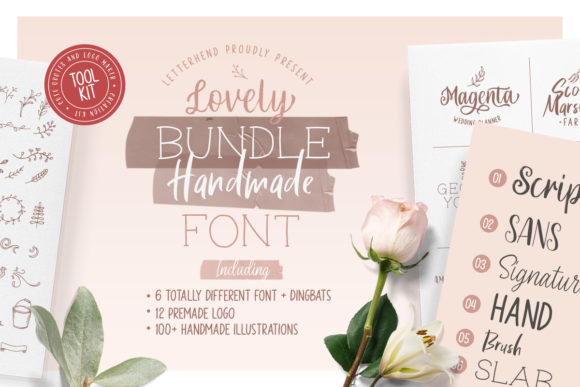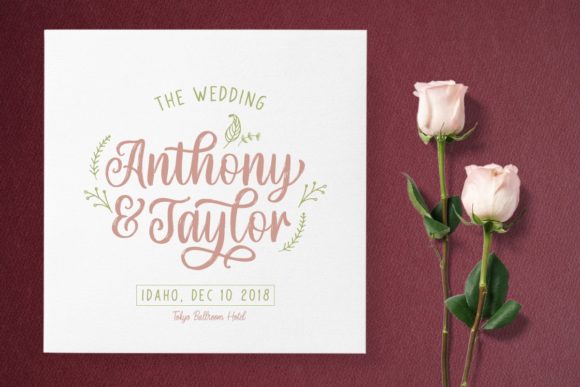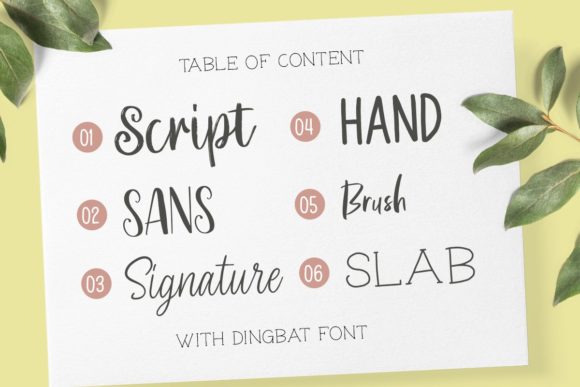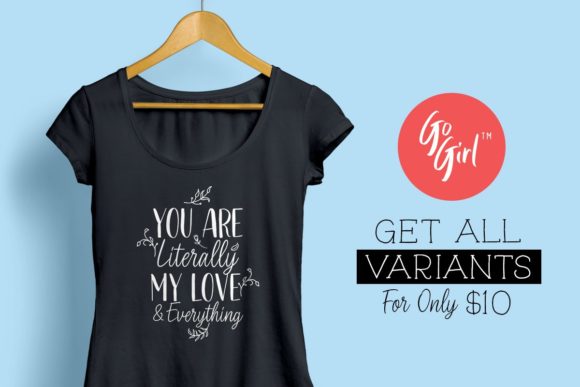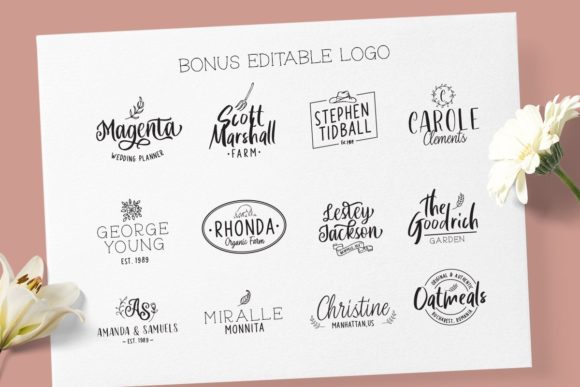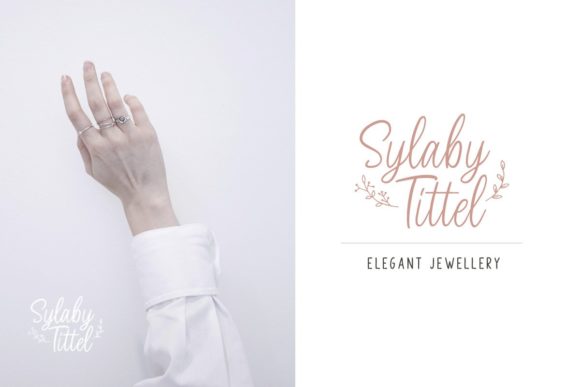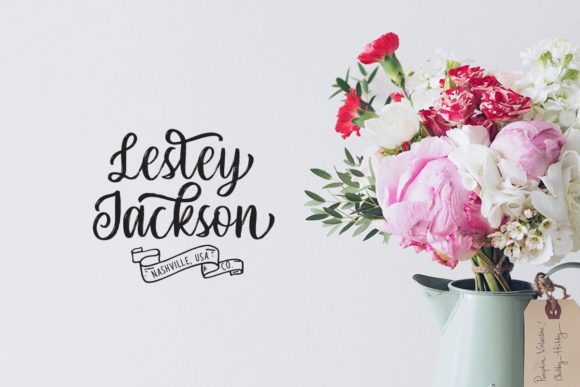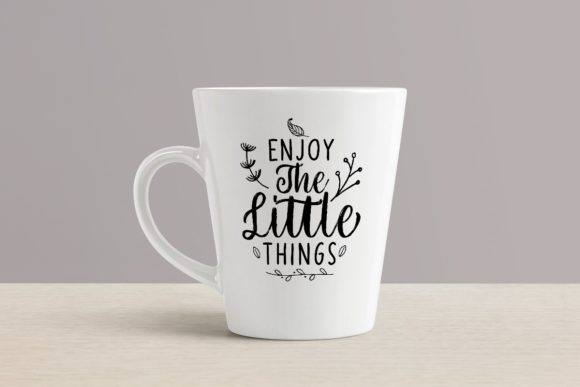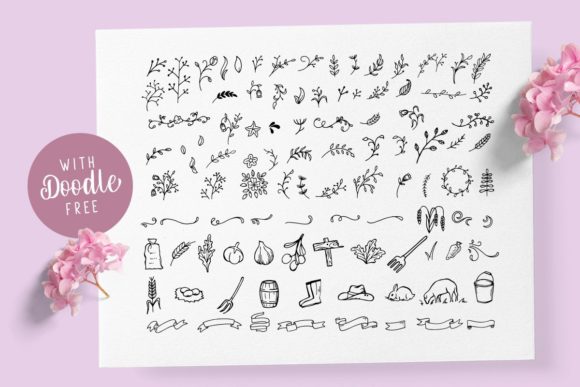
HomeScript FontsOlive Family Font Script Fonts Olive Family Font FacebookXPinterestWhatsApp Olive Family Font Poster 2 Olive Family Font Poster 3 Olive Family Font Poster 4 Olive Family Font Poster 5 Olive Family Font Poster 6 Olive Family Font Poster 7 Olive Family Font Poster 8 Olive Family Font Poster 9 Olive Family Font Poster 10 Olive Family Font Poster 11 About Olive Family Font Olive is a sweet and charming font family with six distinct fonts. Get inspired by its romantic lettering! DOWNLOAD NOW People also explored Renegade Font Elite Font Feticks Font Bandriya Font Sloopy Joe Font Spider Web Font Jumpscare Siblings Love Font Santoriny Font 358 0 TagsOlive Family Font Previous articleSultana FontNext articlePositivland Font LEAVE A REPLY Cancel reply Comment: Please enter your comment! Name:* Please enter your name here Email:* You have entered an incorrect email address! Please enter your email address here Website: Save my name, email, and website in this browser for the next time I comment. Personal Use Free Aragon Personal Use Free Read more about this font Vilsuve Personal Use Free Read more about this font Royal Bengal Tiger Personal Use Free Read more about this font Mama Personal Use Free Read more about this font BLOG The 10 Best Handwriting Fonts to Add Personality to Your Designs 10 of the Best Handwriting Fonts for Adding Personality to Your Designs There will undoubtedly be no other better choice than handwriting fonts to give... How to Install and Use Fonts on Windows, macOS, and Web Projects Using Fonts in Digital Marketing: Tips to Strengthen Your Brand Identity Fonts That Capture the Spirit of New York City